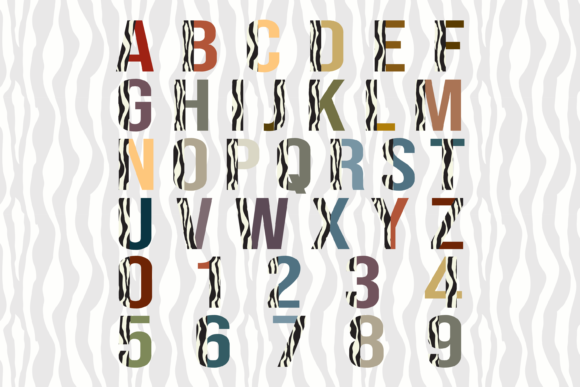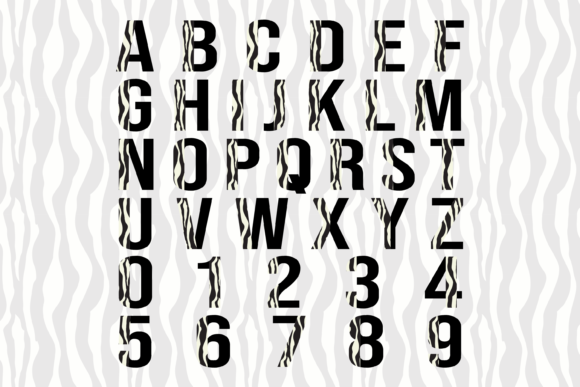
About Zebra Font
Introducing Zebra, a captivating color font that offers a dynamic duo of styles: black and color. Designed to complement each other perfectly, these fonts are ideal for adding special decorations to your crafts and designs. Whether you’re working on custom designs, DIY crafts, or any creation that needs a lovely touch, Zebra will be an amazing choice.
Zebra’s unique feature is its versatility. You can use the black style for a classic and elegant look, while the color style adds a vibrant and eye-catching element to your designs. Whether you choose to use them together or separately, these fonts will elevate your creations and make them truly special.
The black style of Zebra brings a sense of sophistication and timelessness to your projects. Its clean lines and bold presence create a strong visual impact, making it perfect for headers, titles, and focal points. The simplicity of the black style allows it to be easily paired with other fonts and elements, giving you endless possibilities for creativity.
On the other hand, the color style of Zebra adds a playful and energetic touch to your designs. The vibrant colors and intricate details bring life and personality to each letter, making them pop off the page. Whether you’re designing invitations, posters, or digital graphics, the color style of Zebra will make your creations stand out and catch the eye of your audience.
Zebra is not limited to a specific theme or style, making it versatile for various projects. Whether you’re working on graphic design, branding, party decorations, or even personal crafts, Zebra will add that special touch of decoration that sets your work apart. Its charm and versatility make it suitable for both professional and personal use.
Choose Zebra as your go-to font for adding special decoration to your crafts and designs. Its duo styles, black and color, provide endless possibilities and allow you to create stunning visuals that leave a lasting impression. Whether you’re a designer, a crafter, or simply someone who appreciates a lovely touch, Zebra will be the perfect companion for your creative journey.